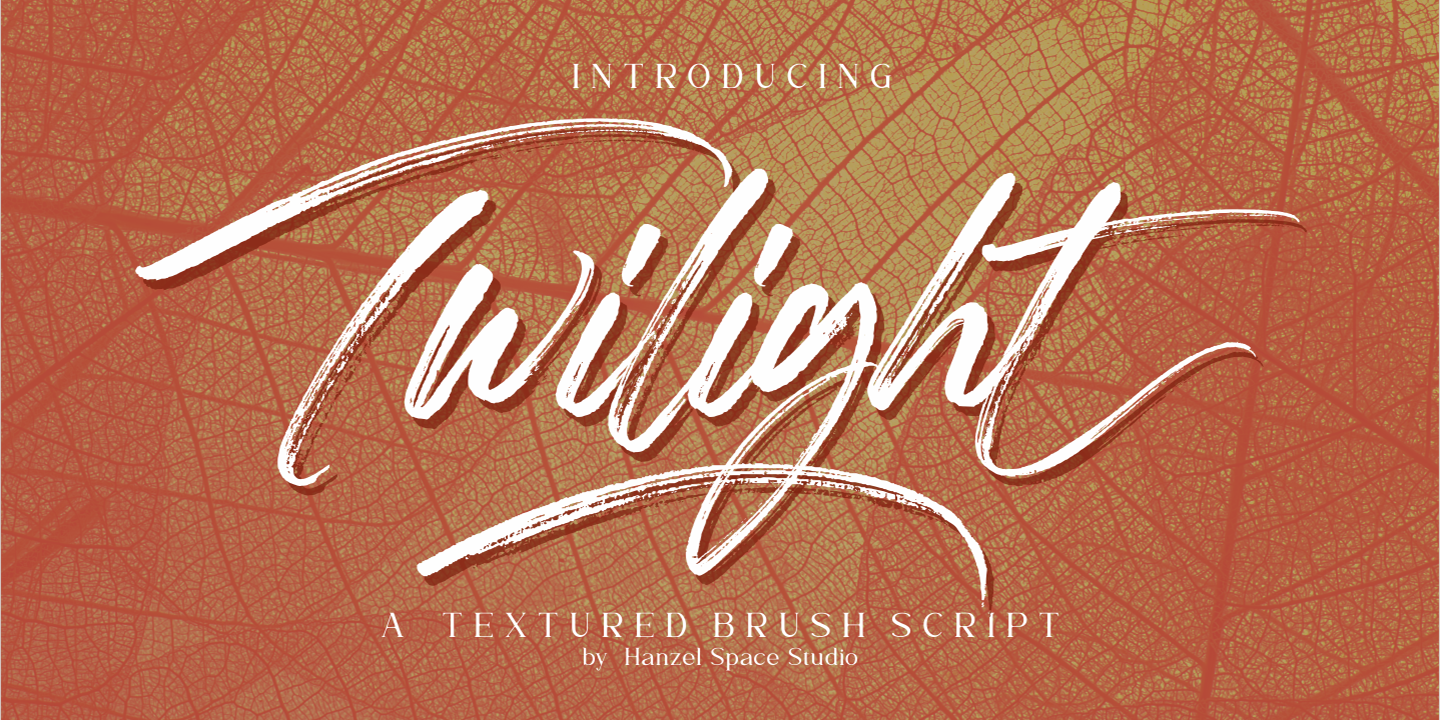
Twilight Brush Font is perfect for artistic painting studios, romantic evening event invitations, atmospheric restaurant branding, dreamy photography portfolios, sunset vacation campaigns, twilight wedding materials, moody artistic projects, evening entertainment venues, romantic poetry publications, atmospheric wine bars, serene spa retreats, and enchanting dusk-themed communications. This evocative typeface brings twilight magic to projects requiring atmospheric beauty and romantic sophistication.
What makes Twilight Brush Font so exciting is its mesmerizing ability to capture the ethereal beauty and romantic atmosphere of twilight hours through artistically brushed letterforms that seem painted with the golden hues and gentle shadows of dusk. The font features organically flowing characters with painterly textures and atmospheric proportions that mirror the soft transitions and magical quality of twilight skies and evening romance. Its dreamy character conveys serenity and romance while maintaining excellent readability, making it perfect for brands seeking to communicate atmospheric beauty, romantic elegance, and the enchanting magic of twilight moments with authentic artistic sophistication.
The Twilight Brush Font family includes multiple atmospheric weights and brush-inspired variations that showcase its romantic character while providing comprehensive design flexibility for various artistic and atmospheric applications. Each variant maintains the original's twilight magic while offering extensive options for creating enchanting typographic compositions that celebrate romantic beauty and atmospheric charm.
Whether you're developing romantic brand identities, creating atmospheric marketing materials, or designing twilight-inspired communications, Twilight Brush Font Free Download offers the perfect combination of artistic authenticity and contemporary functionality. This exceptional typeface brings genuine twilight enchantment to design projects, making it an indispensable choice for designers seeking typography that effectively communicates romantic atmosphere, artistic beauty, and the magical serenity of twilight moments with authentic brushed elegance.